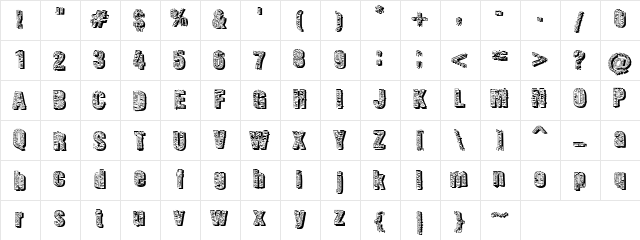
Corporate Suit Shadow
Design Context for Corporate Suit Typeface
Corporate Suit is built around its visual character rather than neutral utility — its distinctive forms are designed to make an impression at display sizes.
Font Pairing: Pair with a clean neutral sans-serif for body copy to let Corporate Suit's character lead without overwhelming the composition.
Pro Tip: Use Corporate Suit exclusively at display sizes — it was designed to be seen, not read at length. Let a neutral companion handle body copy.